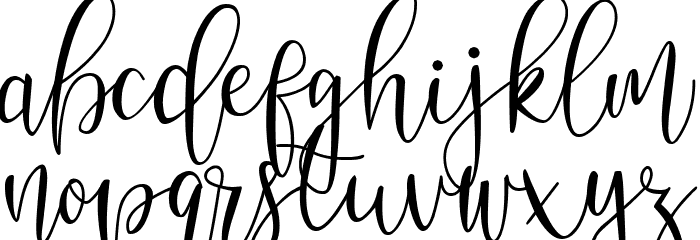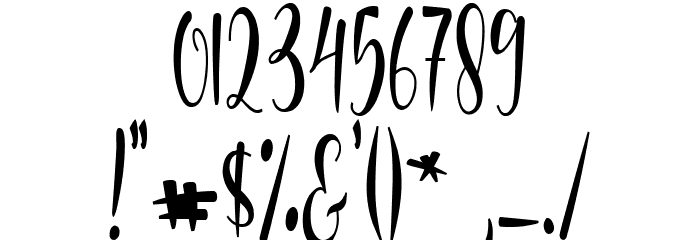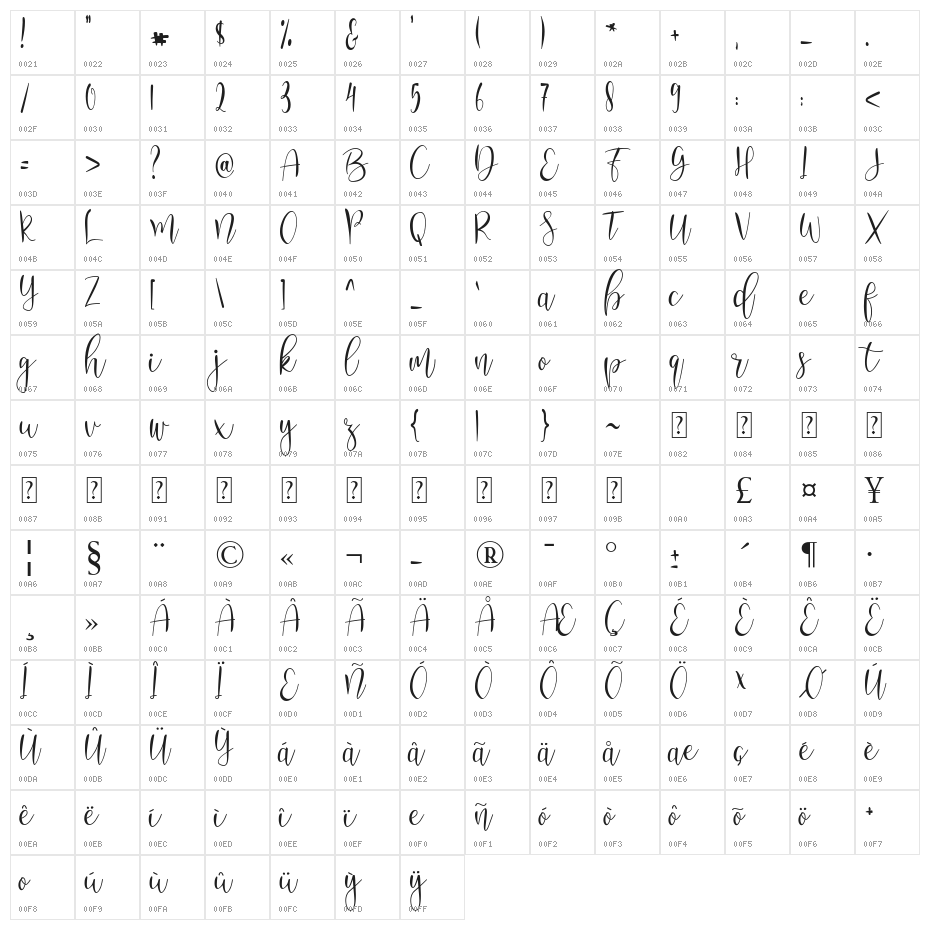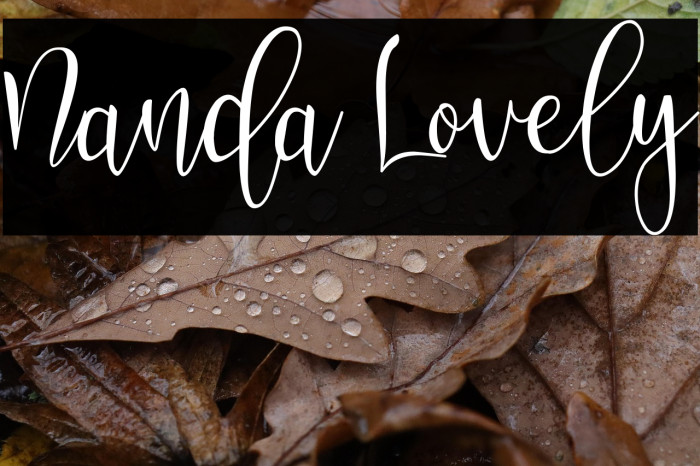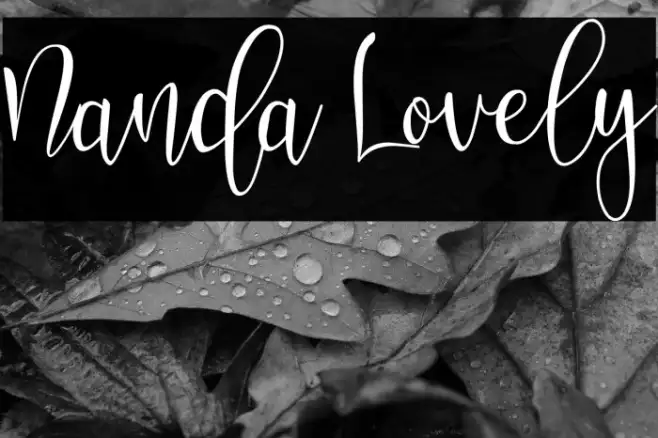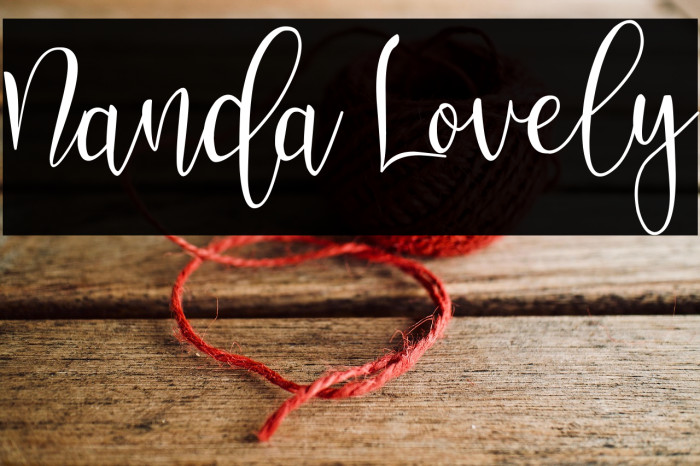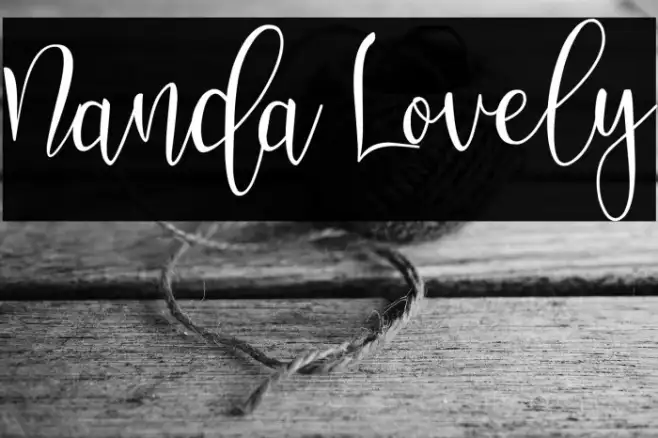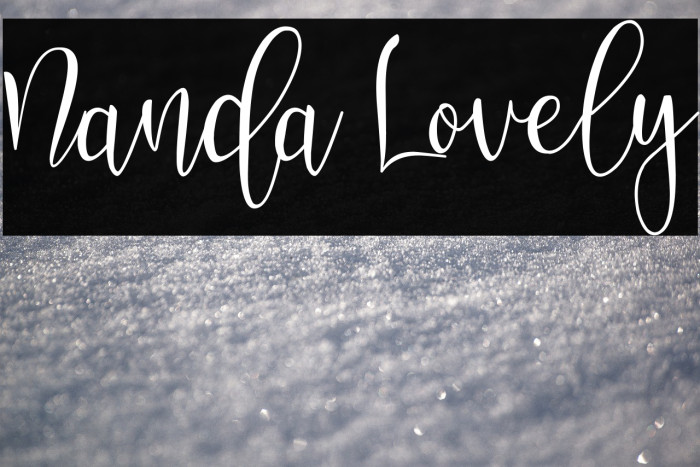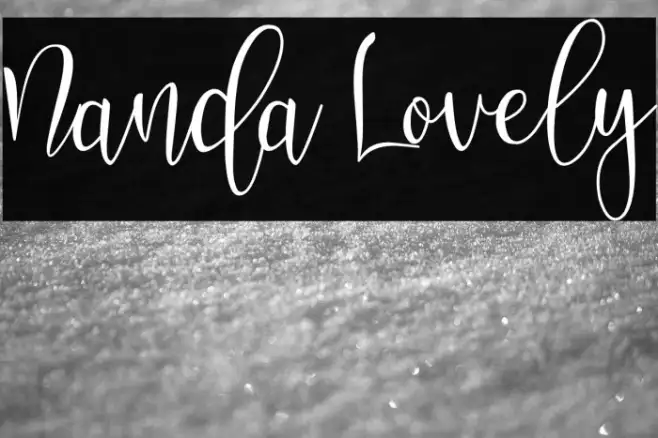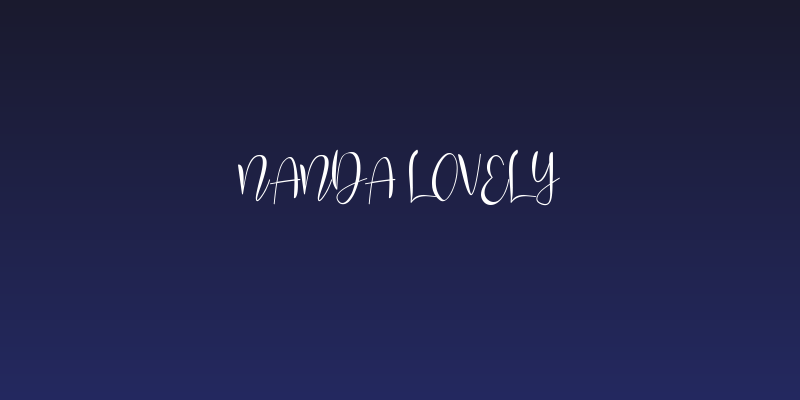
Nanda Lovely Font
This font features an elegant and flowing script style, characterized by its smooth, cursive strokes and artistic flair. The uppercase letters are bold and sweeping, with a sense of movement that adds a dynamic quality to the text. The lowercase letters maintain a consistent flow, with loops and curves that enhance its handwritten appearance. Numbers and special characters are crafted with the same attention to detail, ensuring a cohesive look across all elements. This font exudes a sense of sophistication and charm, making it ideal for projects that require a personal touch.
An elegant, flowing script font with a sophisticated, handwritten style.
- Proposed Projects: Ideal for wedding invitations, greeting cards, branding, and logo design.